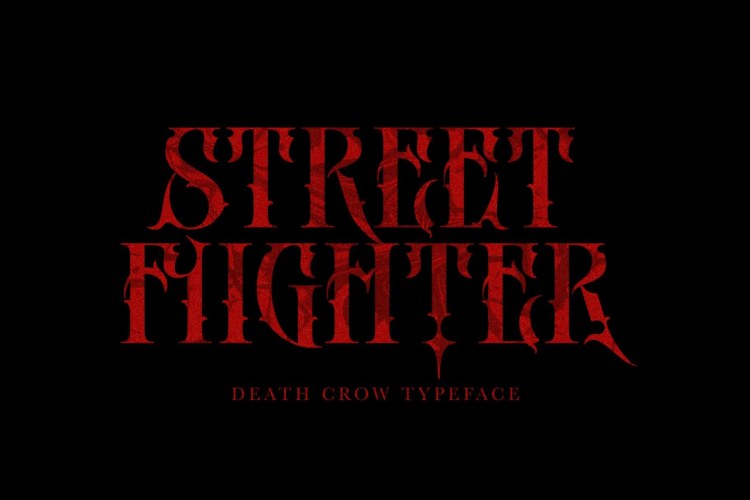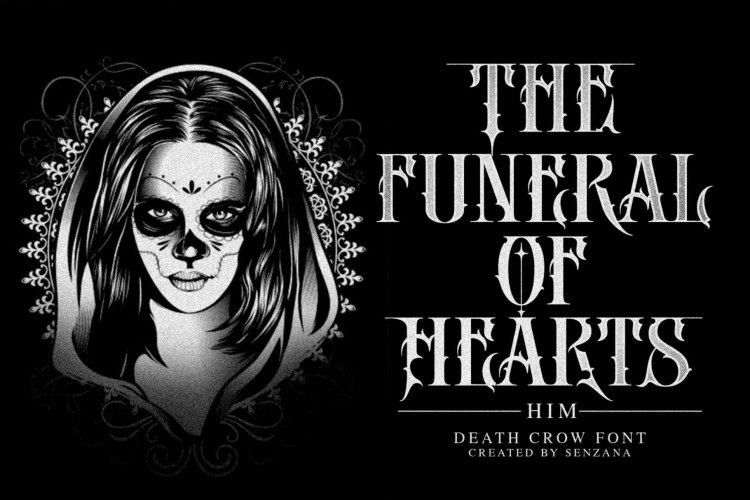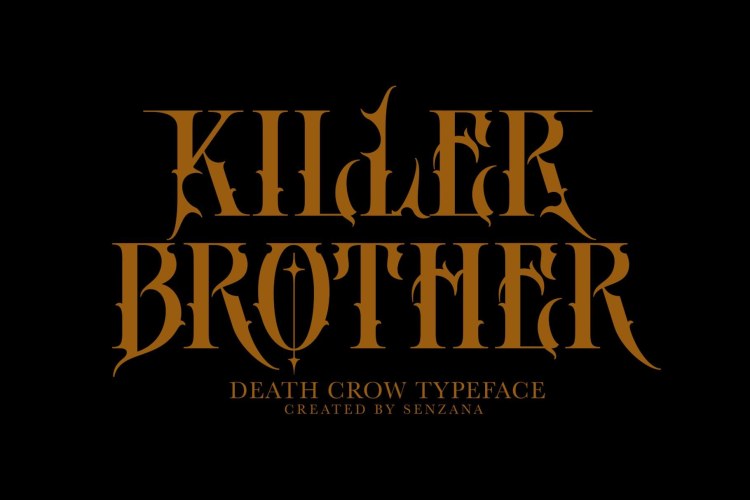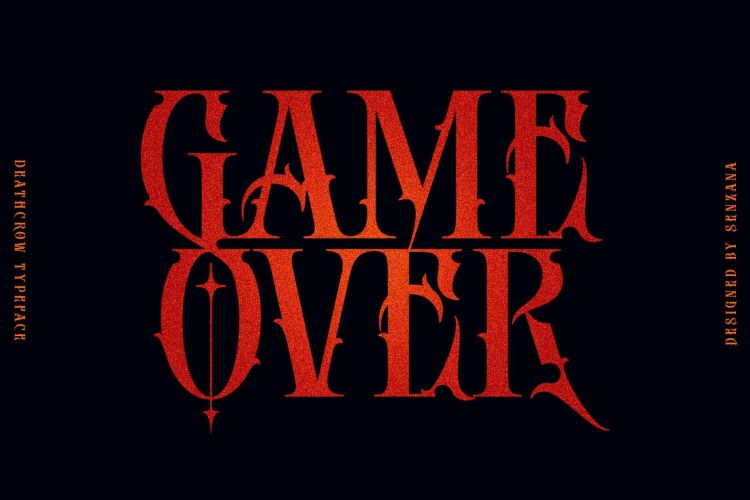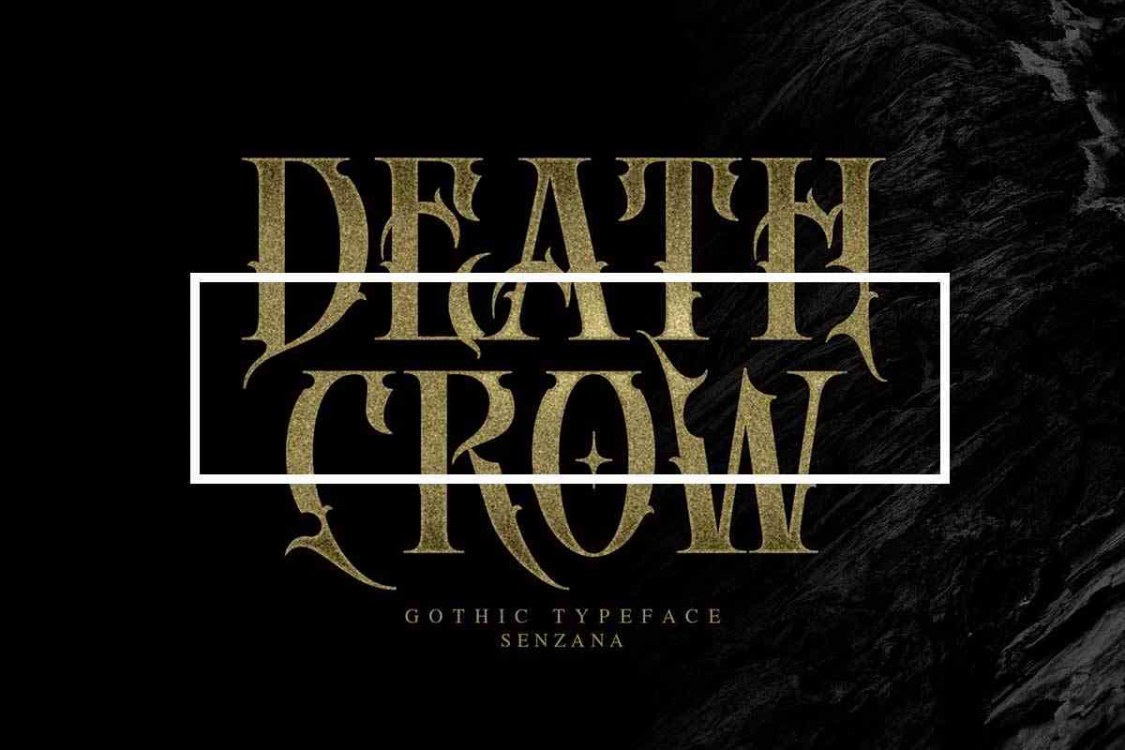
Death Crow Font
Introducing our first product, the Death Crow Font. This Gothic metal style font is perfect for enhancing various types of artwork such as illustration designs, logos, and band designs. You can utilize this font to give your designs a unique and edgy look.
Where Death Crow Font works best
Death Crow Font is built for size: event posters, hero headlines and billboard-style layouts.
High contrast display type like Death Crow Font reads instantly in thumbnails and motion graphics.
What is Death Crow Font good for?